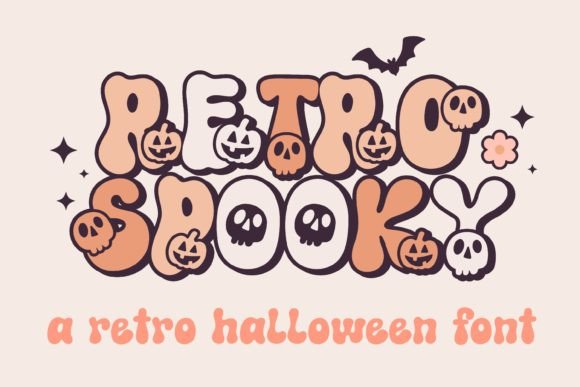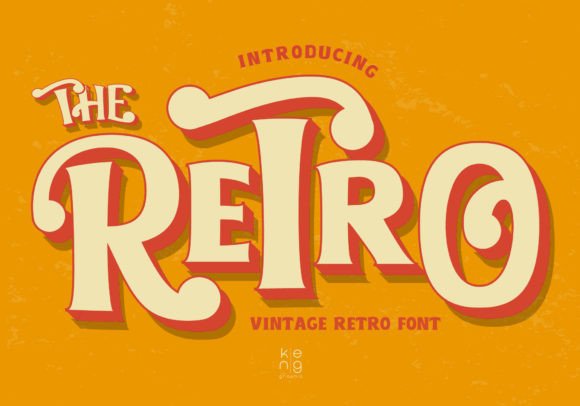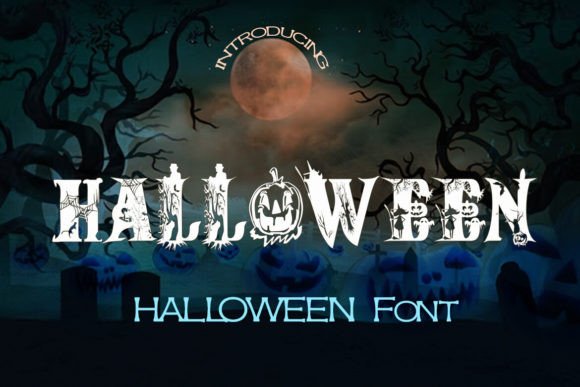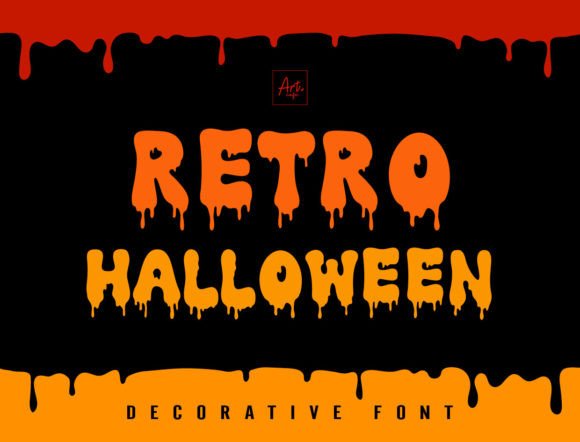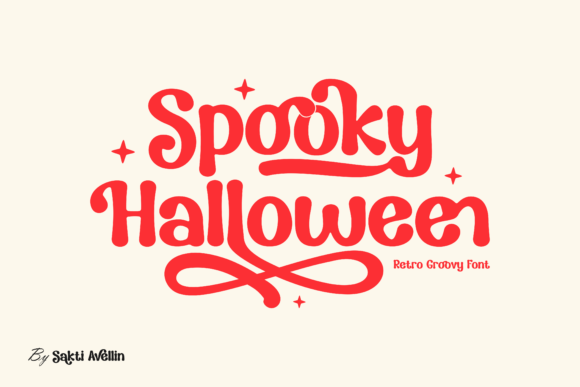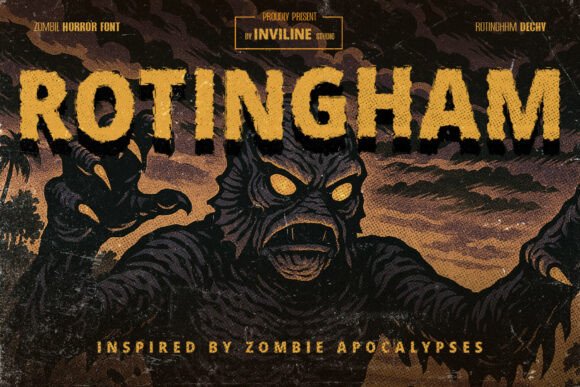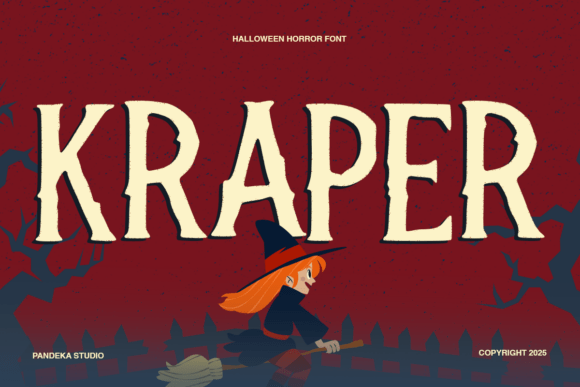
19 Best Retro Halloween Fonts for Posters & Flyers
Retro Halloween Fonts & Typography
Looking for a typeface that instantly gives your Halloween designs a vintage twist? These retro spooky fonts combine nostalgic lettering, creepy details, playful shapes, and classic display styles for posters, flyers, invitations, social graphics, and seasonal branding.
Why retro Halloween fonts work so well: Halloween typography does not always need to look frightening. A retro-inspired typeface can create atmosphere through vintage curves, playful lettering, dramatic shapes, and nostalgic display details. This makes these fonts especially useful for posters, flyers, party graphics, merchandise, invitations, and seasonal social content.
How to Choose a Retro Halloween Font
Start by deciding whether your design should feel creepy, playful, vintage, groovy, elegant, or dramatically spooky. Retro Halloween fonts can range from bold display lettering to decorative seasonal styles, so the right choice depends on the mood and amount of text in your design.
For posters and flyers, prioritize fonts with strong silhouettes that remain readable from a distance. For invitations and social graphics, you can experiment with more decorative styles and distinctive letterforms.
19 Retro Halloween Fonts
Here are 19 retro and Halloween-inspired fonts for creating eye-catching seasonal designs. Use the examples below as a starting point for posters, flyers, party invitations, merchandise, social media graphics, and more.
Retro Spooky Font
01 · Retro Halloween Font
Retro Spooky Font
A retro spooky display font with a nostalgic Halloween character. Its seasonal personality makes it a strong option for bold headlines, posters, flyers, party graphics, and vintage-inspired Halloween artwork.
Best for: Halloween posters, flyers, party graphics, and retro seasonal branding.
Spooky Halloween Font
02 · Spooky Display Font
Spooky Halloween Font
A Halloween-focused display font designed to give seasonal projects an immediately spooky feel. It works well when the typography itself needs to become a prominent part of the composition.
Best for: Halloween flyers, event posters, invitations, and social media graphics.
The Retro Font
03 · Retro Display Font
The Retro Font
A versatile retro display style that can bring a vintage atmosphere to Halloween artwork without relying entirely on traditional horror lettering. Its nostalgic character makes it useful for seasonal compositions with a classic look.
Best for: Vintage Halloween posters, flyers, headlines, and retro-inspired graphics.
Spooky Retro Font
04 · Spooky Retro Font
Spooky Retro Font
A seasonal typeface combining retro styling with a spooky Halloween mood. It is especially useful for display typography where the headline needs to communicate the theme quickly.
Best for: Halloween flyers, spooky posters, party invitations, and themed branding.
Halloween Font Nongyao
05 · Halloween Font
Halloween Font — Nongyao
A Halloween-themed display option for seasonal creative work. Its decorative character can help establish a clear Halloween mood in headlines and short pieces of display text.
Best for: Halloween posters, invitations, party announcements, and social graphics.
Halloween Font WinType
06 · Halloween Font
Halloween Font — WinType
A seasonal Halloween typeface suited to bold display applications. It can be used to give headlines, event materials, and social graphics a recognizable Halloween identity.
Best for: Halloween flyers, posters, event graphics, and seasonal promotions.
Halloween Font Khim08Studio
07 · Halloween Typography
Halloween Font — Khim08Studio
A Halloween display font designed for seasonal compositions. It can add a themed typographic element to short headlines, invitations, promotional graphics, and other Halloween projects.
Best for: Halloween invitations, flyers, social media graphics, and posters.
Halloween Retro Font
08 · Retro Halloween
Halloween Retro Font
A retro-focused Halloween font that combines seasonal subject matter with vintage-inspired typography. It is useful when you want a Halloween design to feel nostalgic rather than purely horror-focused.
Best for: Retro Halloween posters, flyers, merchandise, and social graphics.
Halloween Vintage Font
Consider styles such as The Retro Font, Halloween Vintage Font, Retro Spooky Font, Rotingham Font, or Halloween Retro Font — Art Cafe when you want the typography to support a nostalgic visual direction.